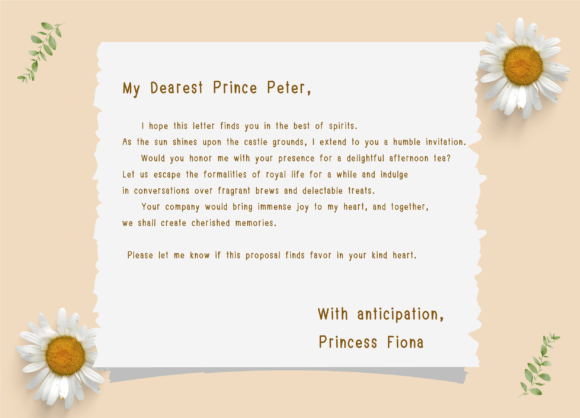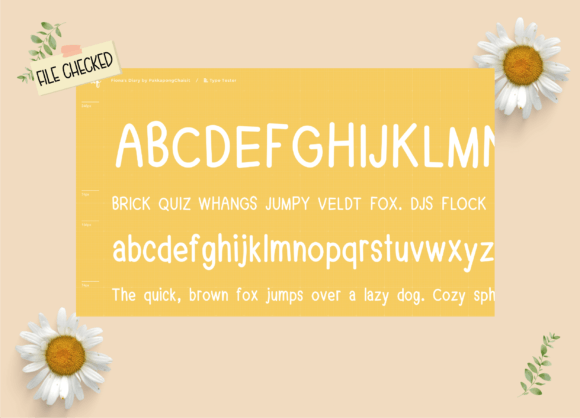
The Enchanting Fionas Diary Font: A Royal Addition to Your Design Arsenal
I’ll never forget the time I was working on a project for a children’s book about princesses. I had all the illustrations ready, but I was struggling to find the perfect font to match the story’s whimsical and regal tone. That’s when I stumbled upon Fionas Diary Font, a beautiful monoline handwritten-style font that captured the essence of fairy tales and royal elegance. In this article, I’ll share my experience with this lovely font, its features, and how to make the most of it in your designs.
A Personal Review: What I Love and What to Consider
- ✅ Smooth and effortless lettering that emulates delicate hand-drawn strokes
- ✅ Consistent line weight, creating a clean and polished look
- ✅ Whimsical charm and regal undertones, perfect for princess-themed projects or feminine aesthetics
- ✅ Easy to read and understand, making it suitable for body text or headings
- ⚠️ Limited character set, which might not be suitable for projects requiring a wide range of special characters
- ⚠️ May not be the best choice for very small font sizes, as some details might get lost
Fionas Diary Font comes with a range of OpenType features, including glyphs and stylistic alternates. These features allow you to add more creativity and personality to your design. For example, you can use the glyphs to add decorative elements, such as flourishes or swashes, to your text. To access these features, follow these steps:
The Story Behind Fionas Diary Font
Fionas Diary Font was inspired by the classic fairy tales and the elegance of royal courts. The designer aimed to create a font that would capture the essence of a princess’s script, with smooth and effortless lettering that exudes grace and sophistication. The result is a beautiful and enchanting font that adds a touch of magic to any project.
Q: What is Fionas Diary Font?
A: Fionas Diary Font is a monoline handwritten-style font in a princess theme, designed to capture the essence of fairy tales and royal elegance.
Q: Is Fionas Diary Font suitable for body text?
A: Yes, Fionas Diary Font is easy to read and understand, making it suitable for body text or headings.